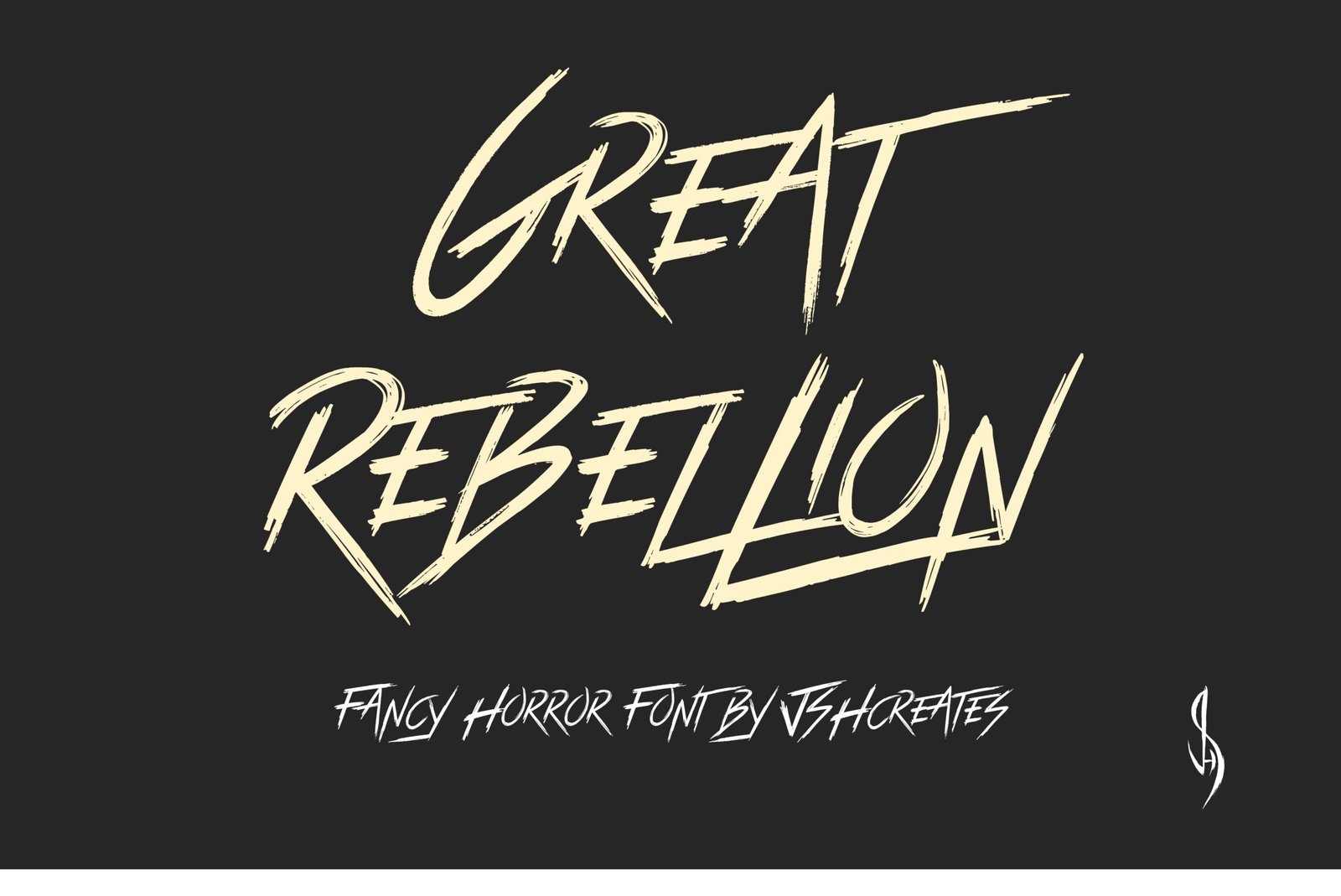
Great Rebellion Font
Fancy horror font. “Great Rebellion” Perfect for advertising and display purposes, including banners, book covers, shirts, posters, logos and much more!
Font includes all alphabet letters, numbers, characters, punctuation and a ligatures set (paired letters).